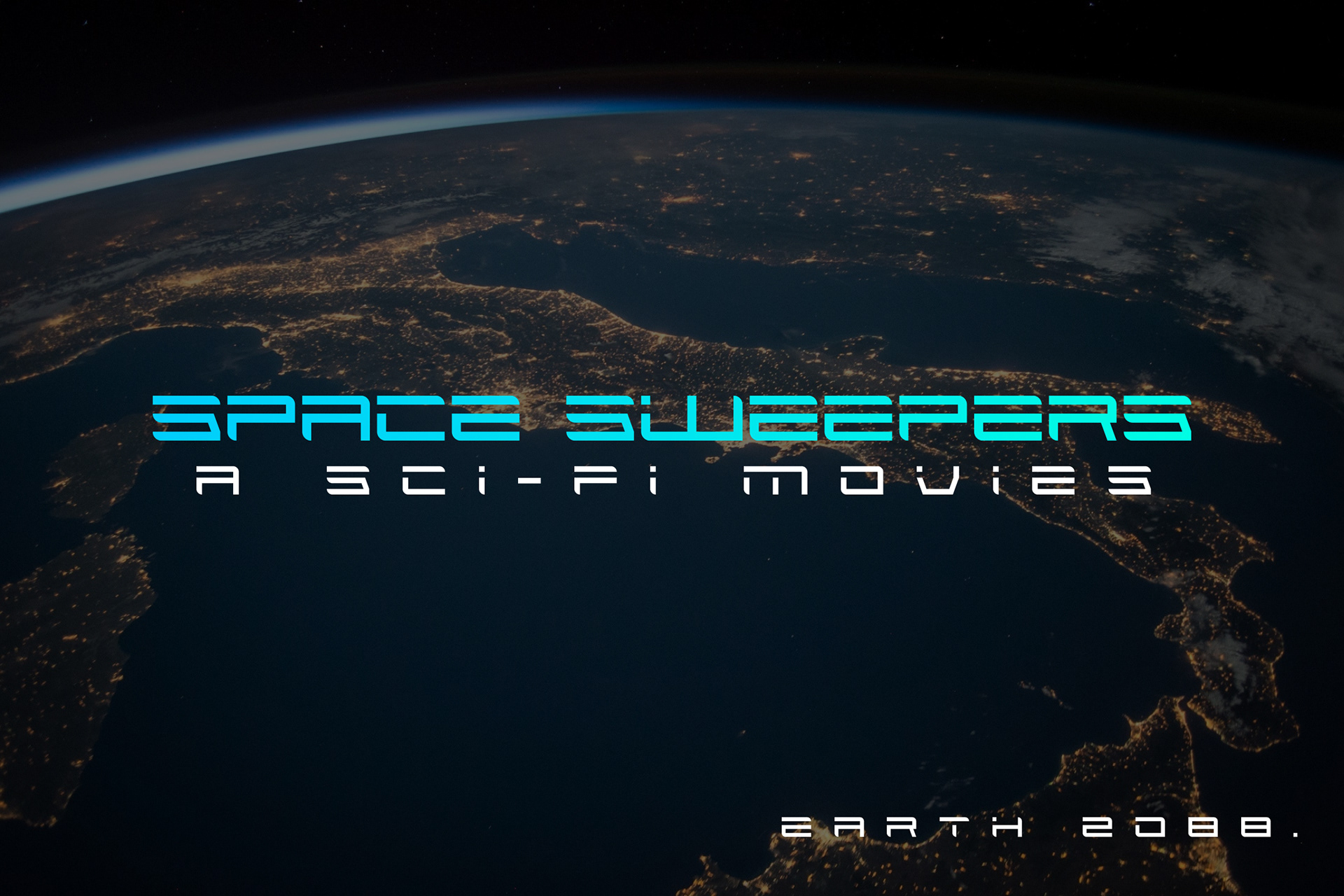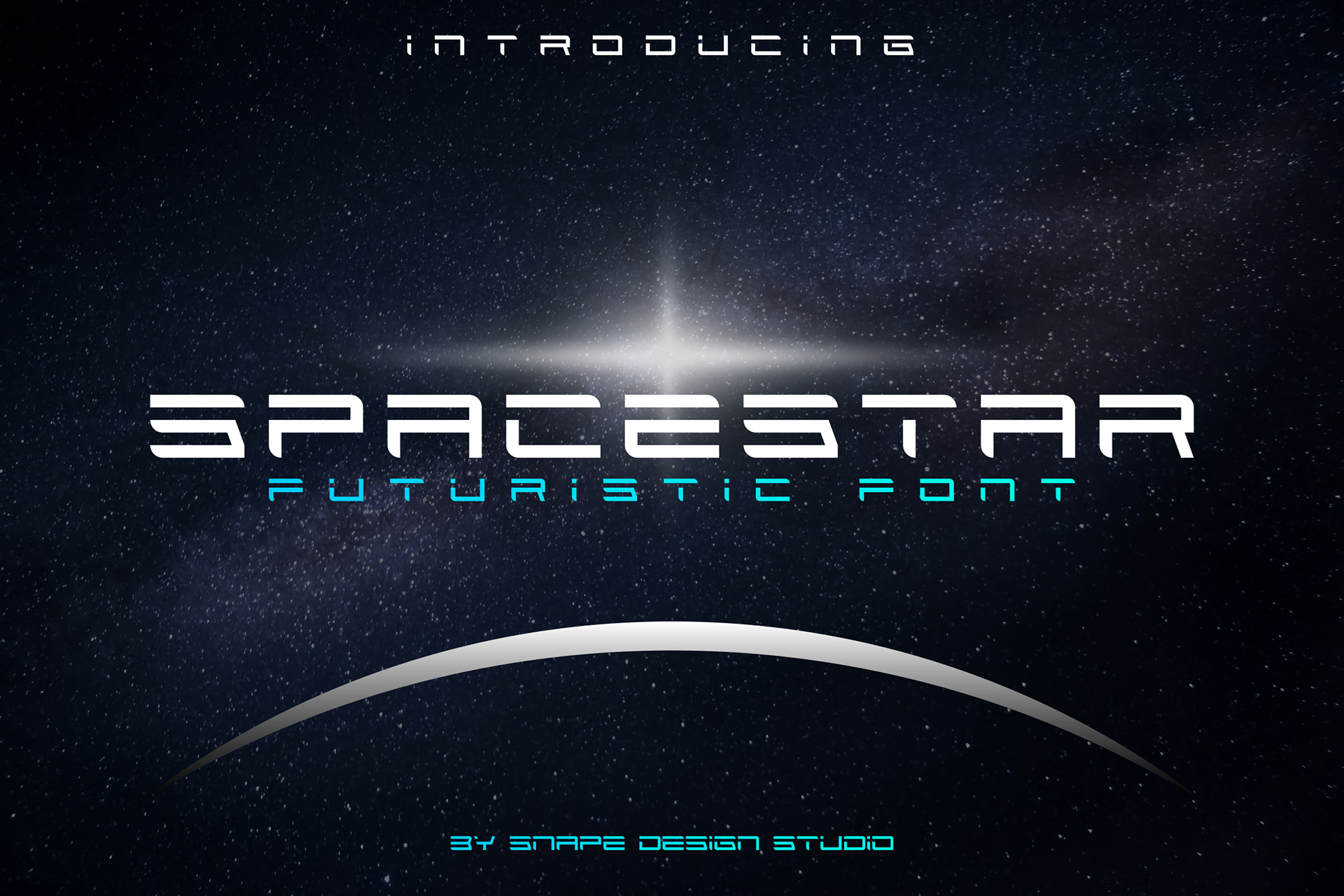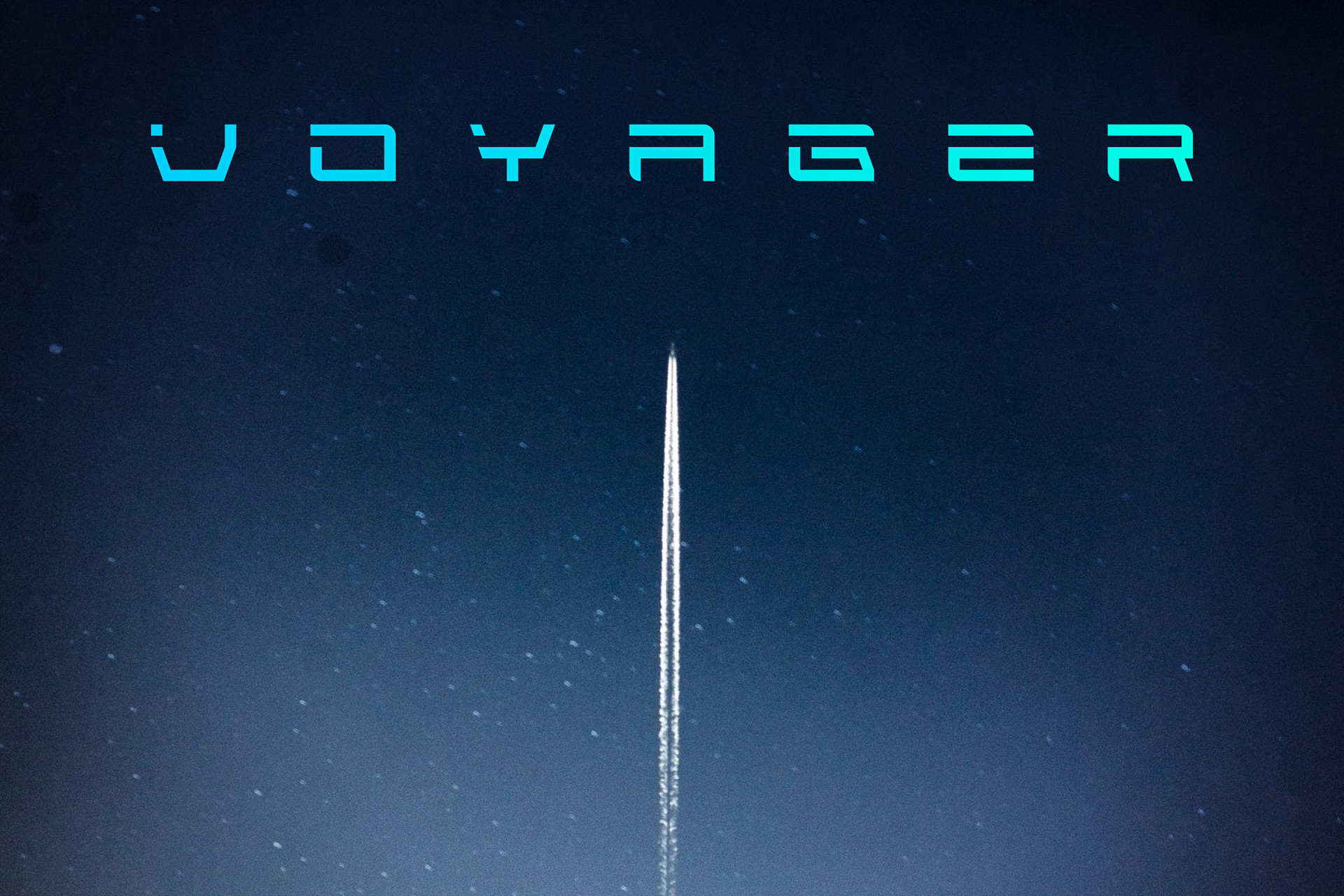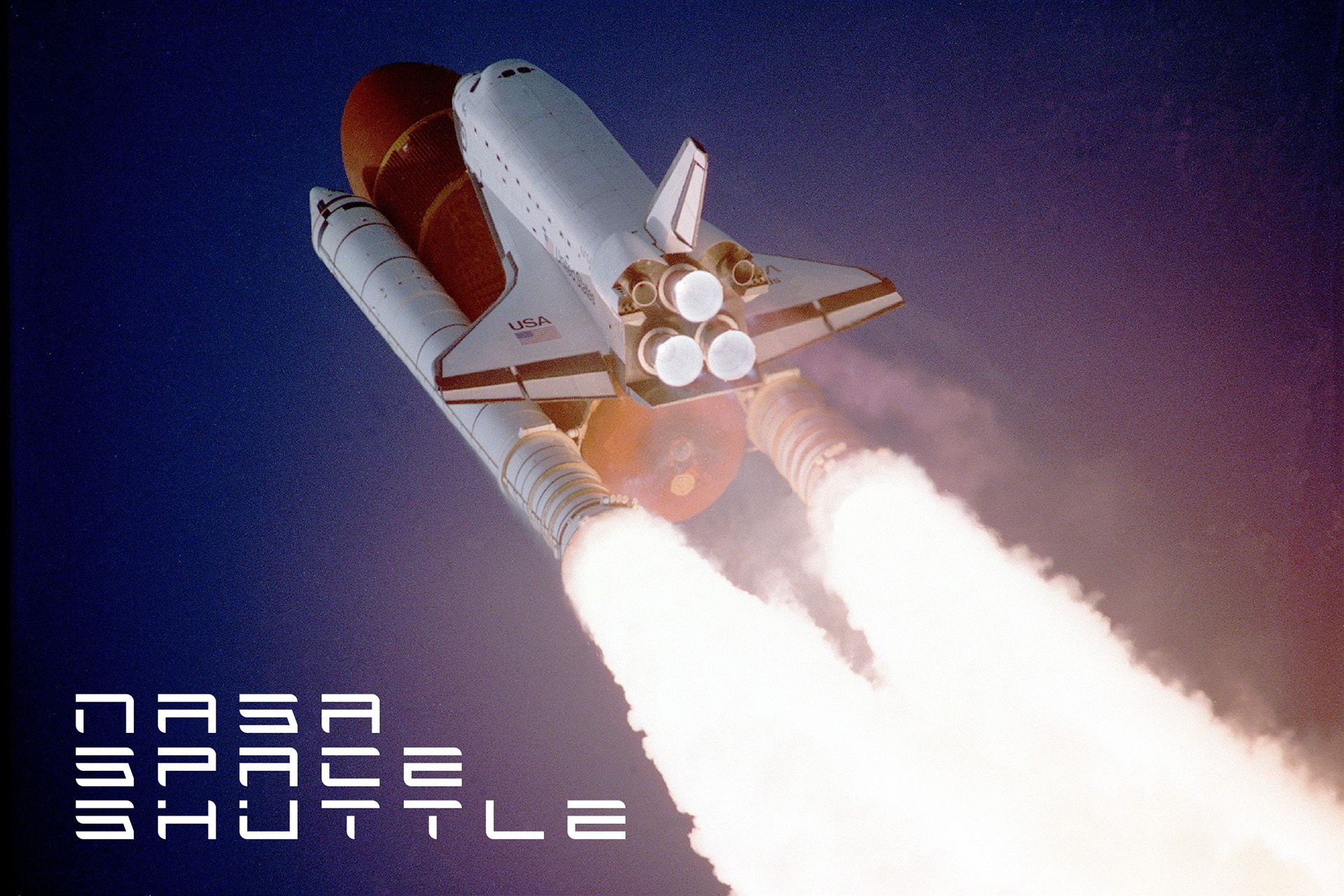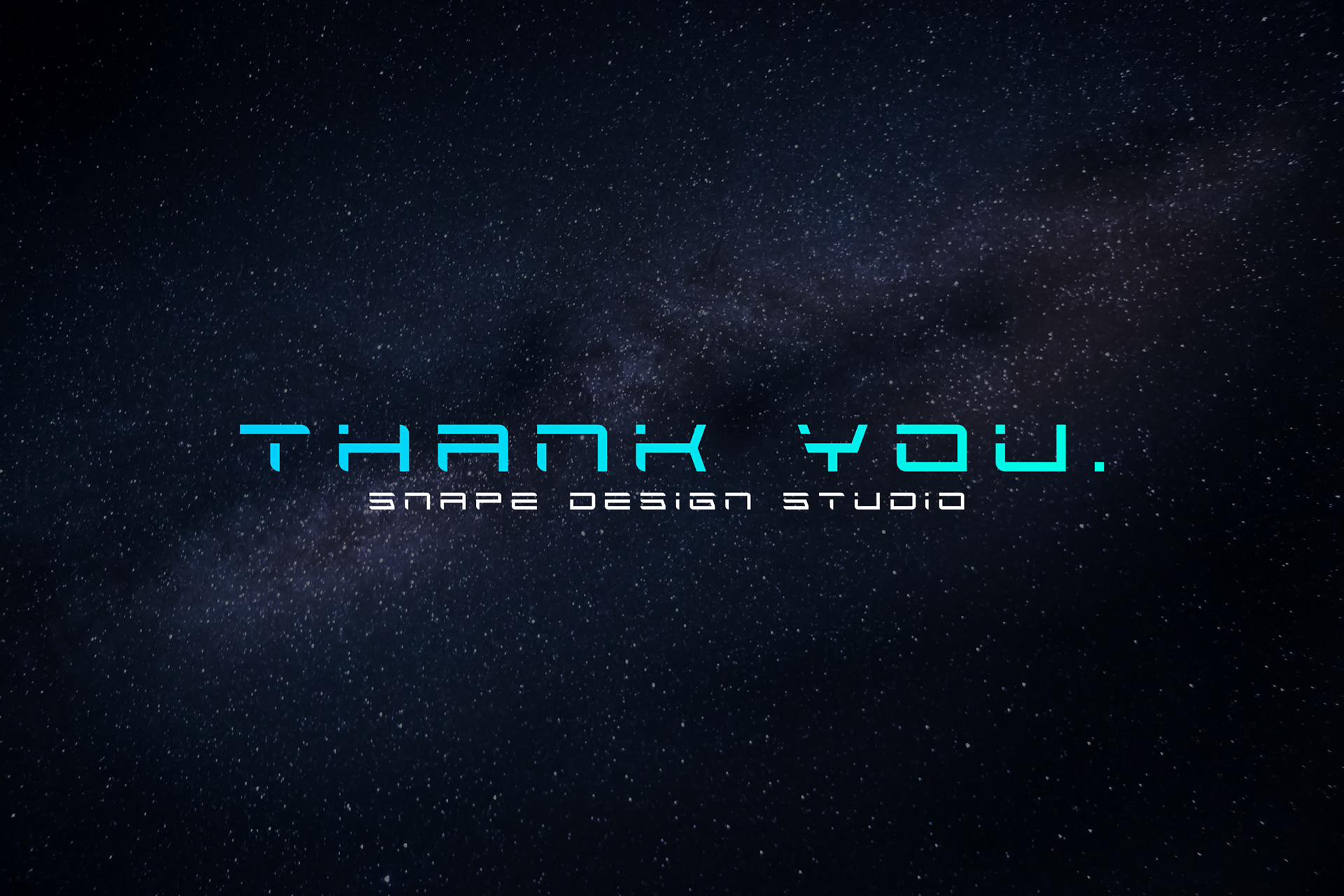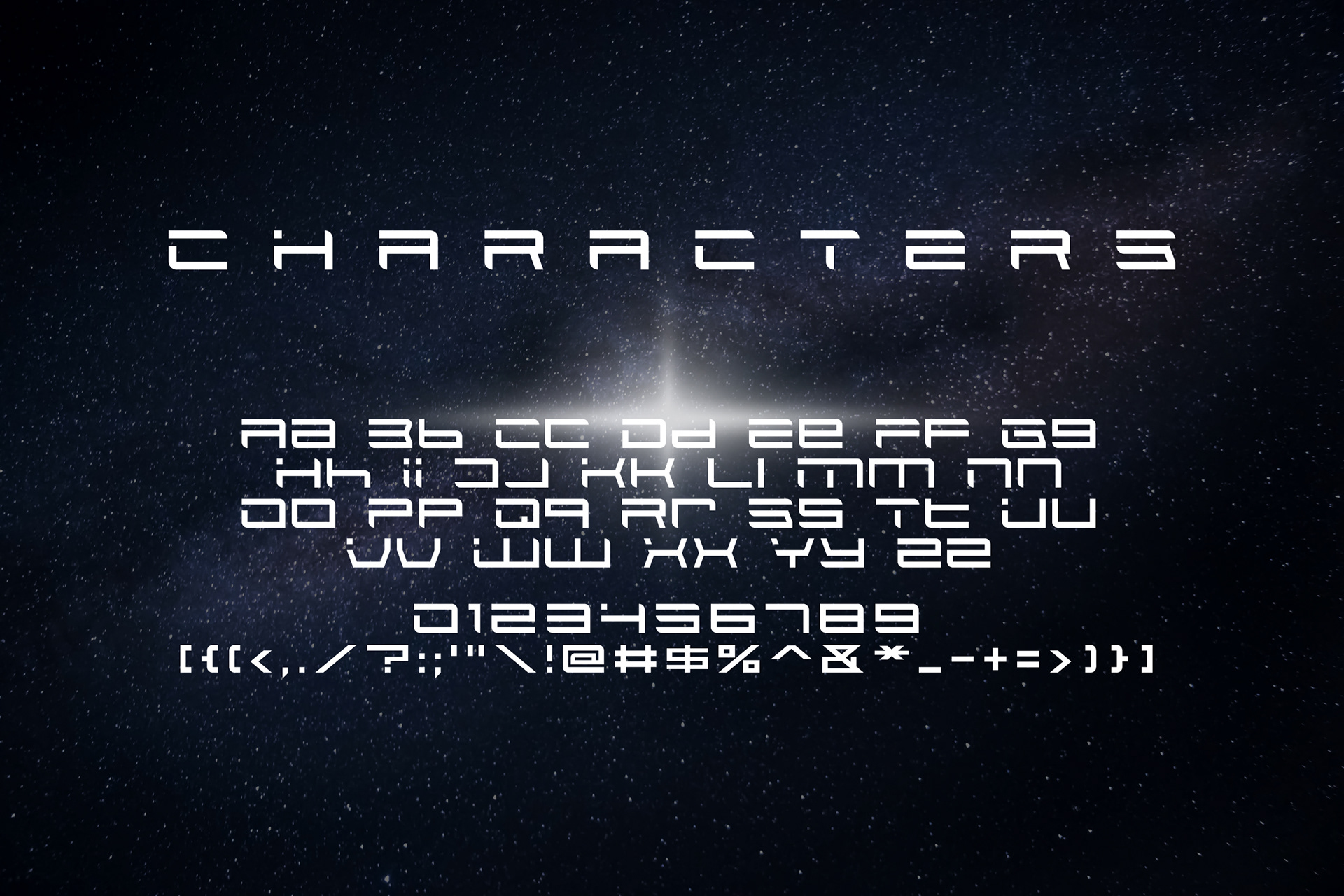
Spacestar is a futuristic display font. It celebrates abstract shapes in all their eclectic beauty. Suitable for movie, documenter, film, logo, poster, game, book cover, headlines, title and many more projects. Add this font to your creative ideas and notice how it will make them stand out!